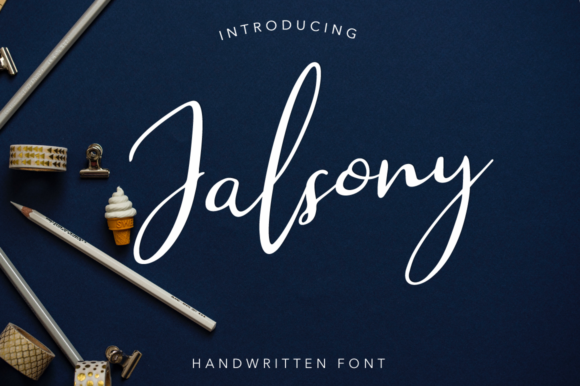
Jalsony Font
**Indulge in the Enchanting Embrace of Jalsony: A Stroke of Calligraphic Brilliance**
Unleash the boundless beauty of Jalsony, a captivating script font that will transform your creations into masterpieces. With its delightful handmade charm, Jalsony breathes life into every word, inviting you on a journey of artistic expression.
Crafted with meticulous attention to detail, Jalsony's variable baseline empowers you to evoke a spectrum of emotions through your designs. From heartwarming invitations to whimsical branding, this font effortlessly adapts to any canvas.
Whether you're a seasoned designer or just starting your creative adventure, Jalsony's boundless versatility invites you to explore endless possibilities. From elegant logos to enchanting social media posts, let this font ignite your imagination and leave an unforgettable impression on your audience.
Indulge in the allure of Jalsony today and elevate your projects to new heights of sophistication and charm. Every stroke of this exquisite font carries a touch of magic that will captivate and inspire.